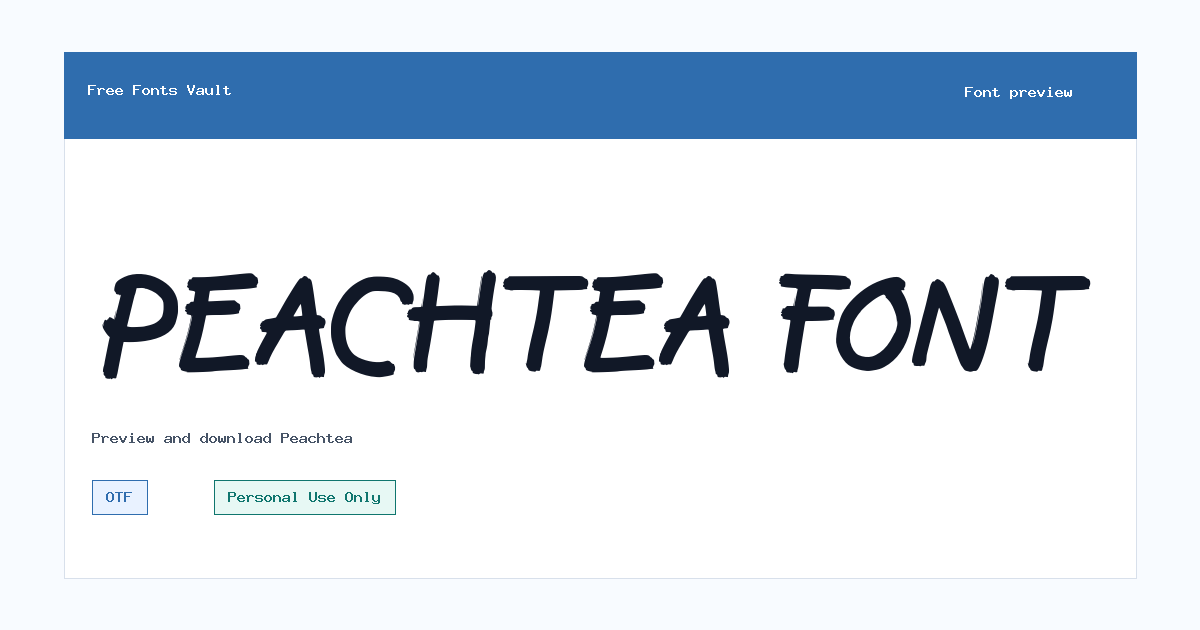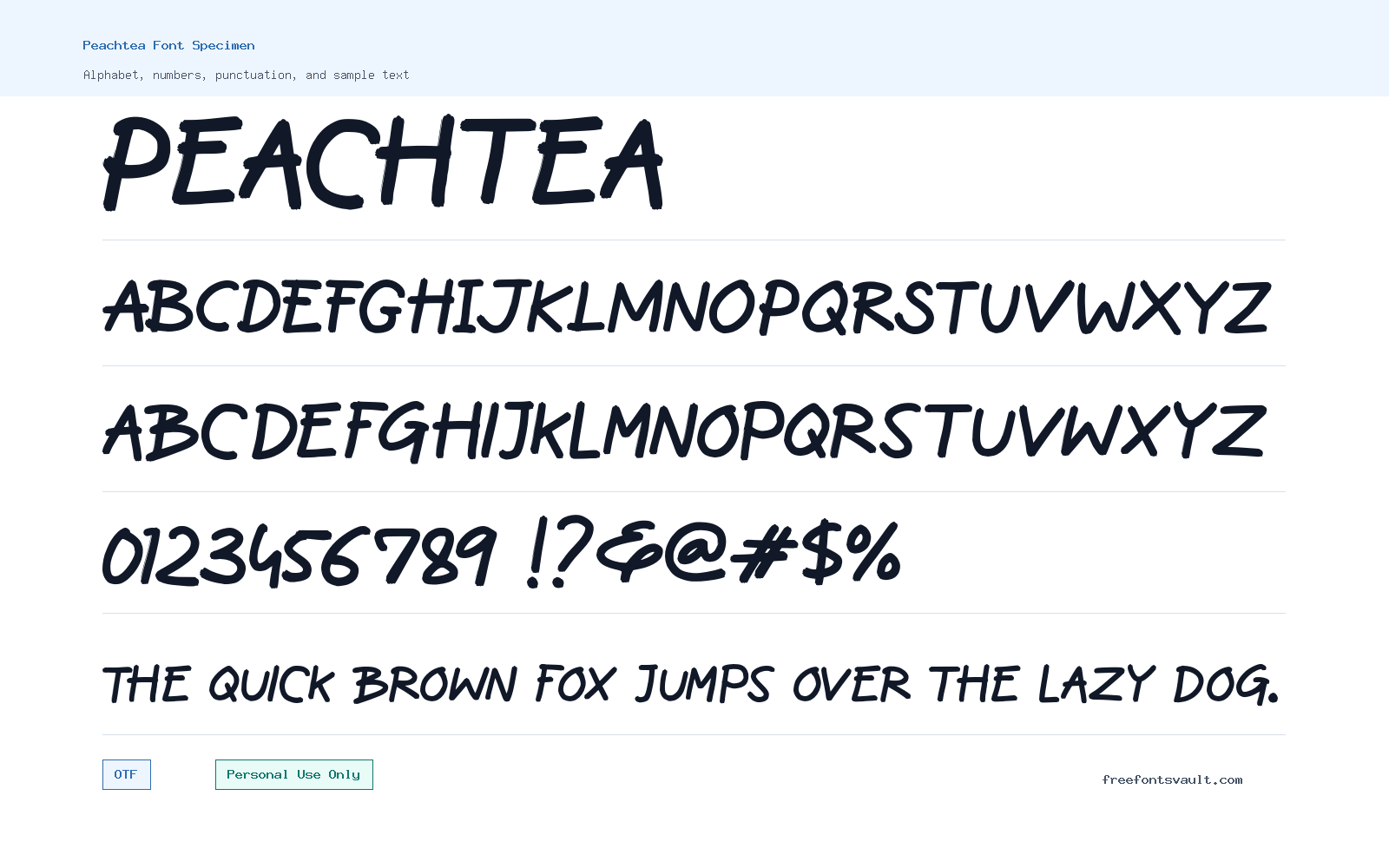
Peachtea
- Designer Bakhrudin Ja'far
- Foundry Bakhrudin Ja'far
Peachtea is a handwritten script font with a casual, friendly look. It is best suited to short display text where the letters can stay large enough to show their soft, hand-drawn rhythm.
About Peachtea Font
Peachtea works well when you want text to feel warm and personal without using a formal calligraphy style. Its script character makes it a better choice for headings, names, short quotes, packaging mockups, social graphics, invitation-style layouts, and decorative labels than for long reading blocks. Use it where the words are meant to be noticed, not where a visitor has to read several paragraphs quickly. Because it is a script font, spacing and letter combinations matter. Before downloading, try your own words in the preview and check how the beginning and ending letters behave, especially in names, brand-style titles, and phrases with repeated letters.
For clean layouts, pair Peachtea with a simple sans serif or a quiet serif. Let Peachtea handle the expressive part of the design, then use the companion font for dates, body copy, menus, product details, or smaller notes. Avoid pairing it with another busy script, because the page can quickly feel crowded. If you use it in a logo draft, watermark, sticker, greeting card, or Pinterest-style image, keep the text short and give it enough space around the letters. Test it at the real size you plan to use, since delicate script shapes can lose clarity when compressed, placed over a detailed photo, or used in very small captions. The download file is in OTF format, which is commonly supported by design apps and most modern desktop font managers.
- Handwritten script style suited to short display text and decorative wording
- Personal invitations, cards, quote graphics, labels, and social media designs
- Names, short headings, packaging mockups, and other display-focused text
Peachtea is credited to Bakhrudin Ja'far, who is also listed as the foundry name for this font entry.
Who designed Peachtea?
Peachtea is credited to Bakhrudin Ja'far.
What kinds of projects fit Peachtea best?
It fits short decorative text such as cards, quote images, labels, names, invitations, and social posts. It is not ideal for long paragraphs or very small text.